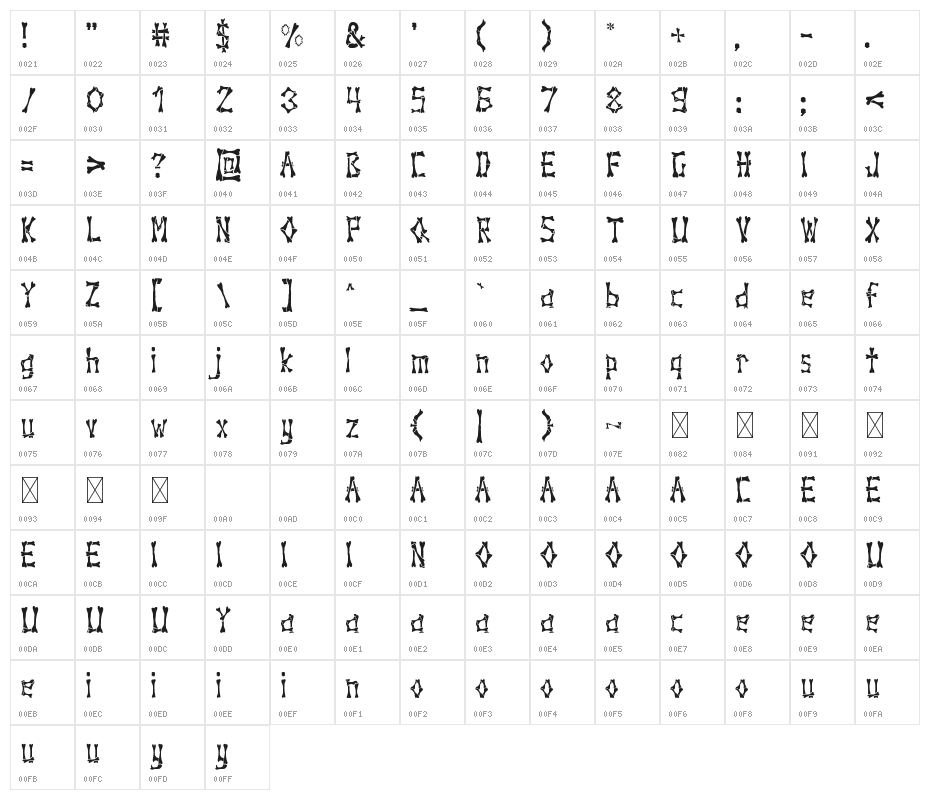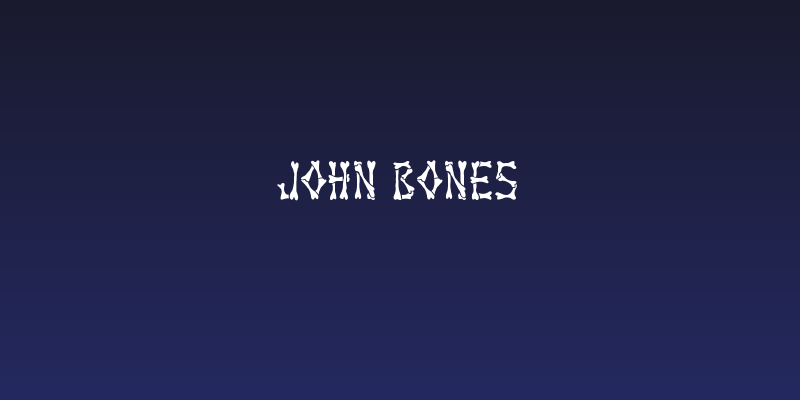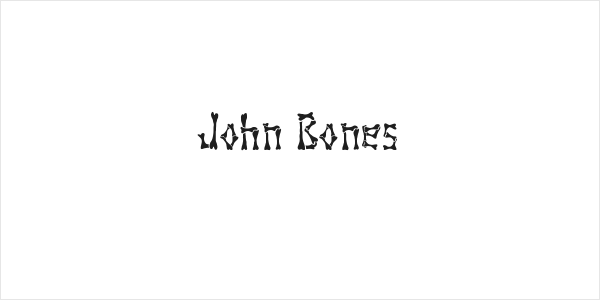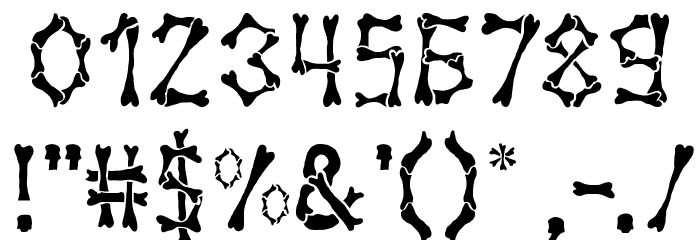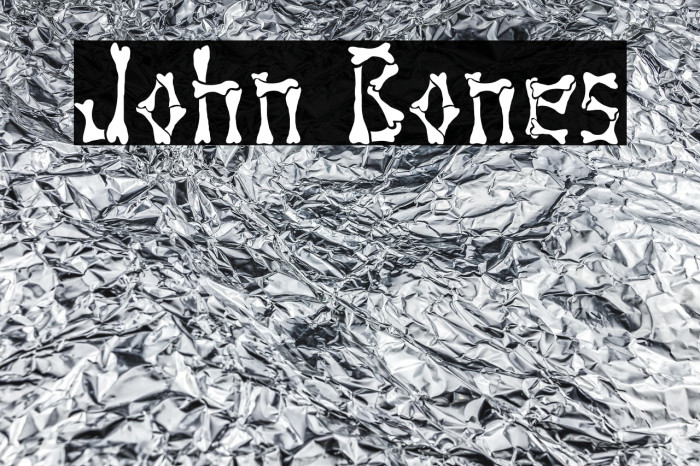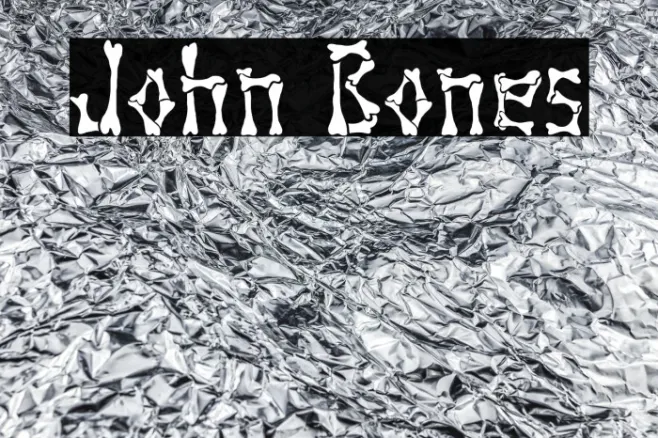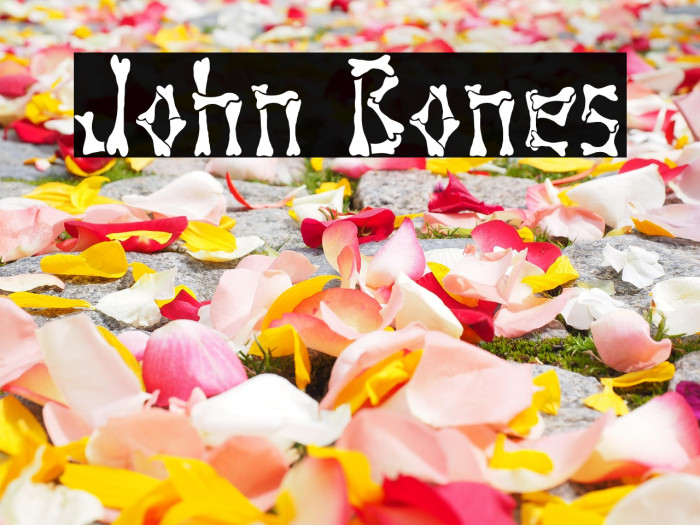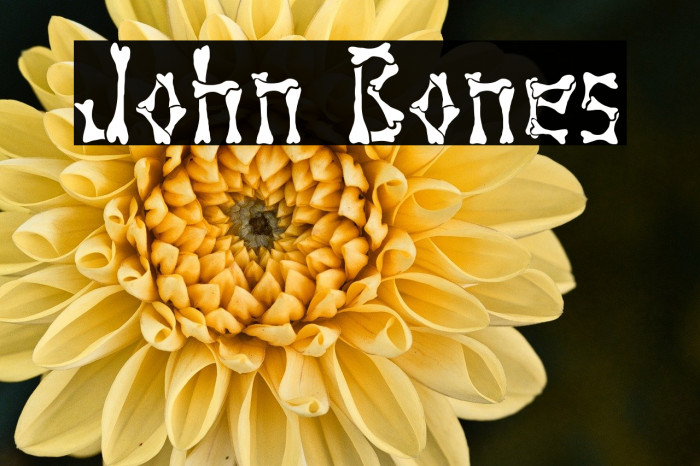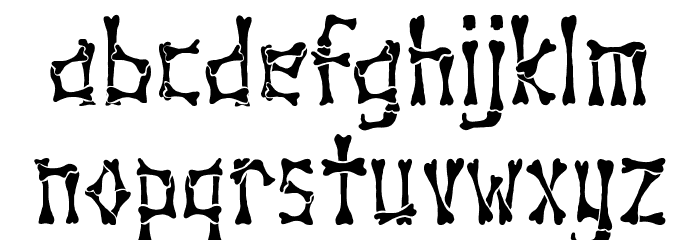
John Bones Font
John Bones Description
This font features a unique and playful design, with characters resembling bones. The letters are crafted with a whimsical touch, making them ideal for themes related to Halloween, horror, or anything requiring a spooky aesthetic. The uppercase and lowercase letters maintain a consistent style, with each character exhibiting a skeletal structure. Numbers and special characters are also included, following the same bone-like motif. The font's distinct appearance makes it stand out, perfect for decorative purposes.
| Use Case | Headlines, Logos, Themed Events |
| Proposed Projects | Perfect for Halloween invitations, horror-themed posters, children's spooky storybooks, or any project needing a quirky, eerie touch. |